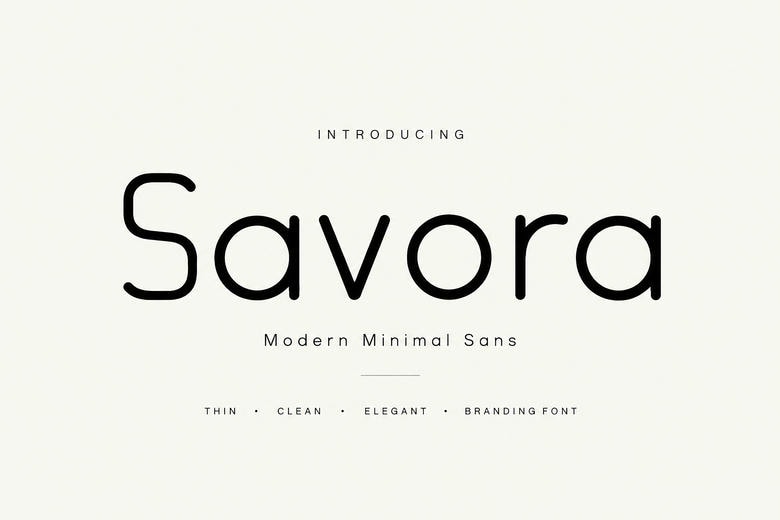
Savora Font
Savora is a modern, clean, and elegant sans serif typeface made for creators who appreciate simplicity and style. With smooth curves, balanced shapes, and careful spacing, Savora brings a high-end minimalist look that works well for today’s branding.
Its smooth, rounded shapes and flexible design make it a great choice for logos, brand identities, magazines, packaging, websites, social media, and luxury product displays.
Savora Sans Serif Font